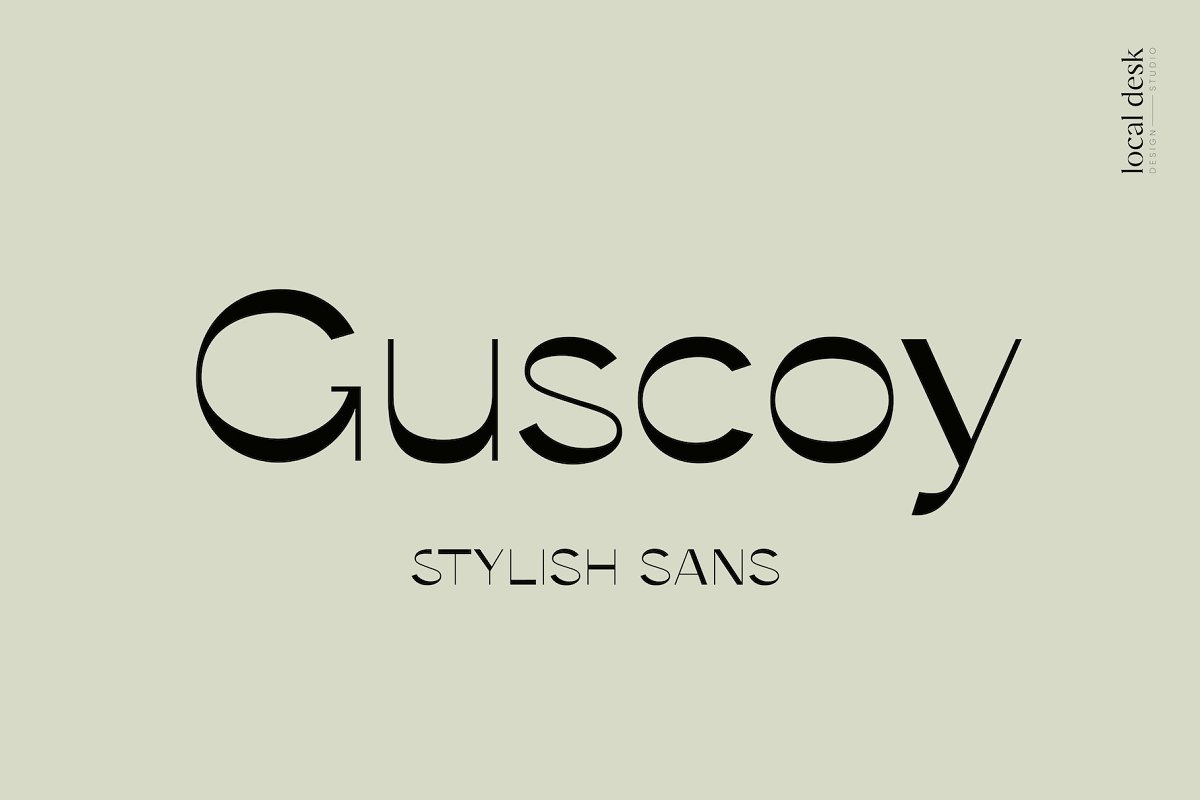
About the Guscoy – Stylish, High Contrast Sans
Guscoy is a modern sans serif typeface that sets itself apart by reverse high contrast of thick and thin lines, Unique curves and clean lines create this memorable font with a minimalist & stylish vibe, Guscoy is perfectly suited for designing modern, high end brands, contemporary packaging, unique quotes, timeless websites and so much more!Check out the sample images above to see what you can create with Guscoy, and test out any sample text you’d like in the box below those images